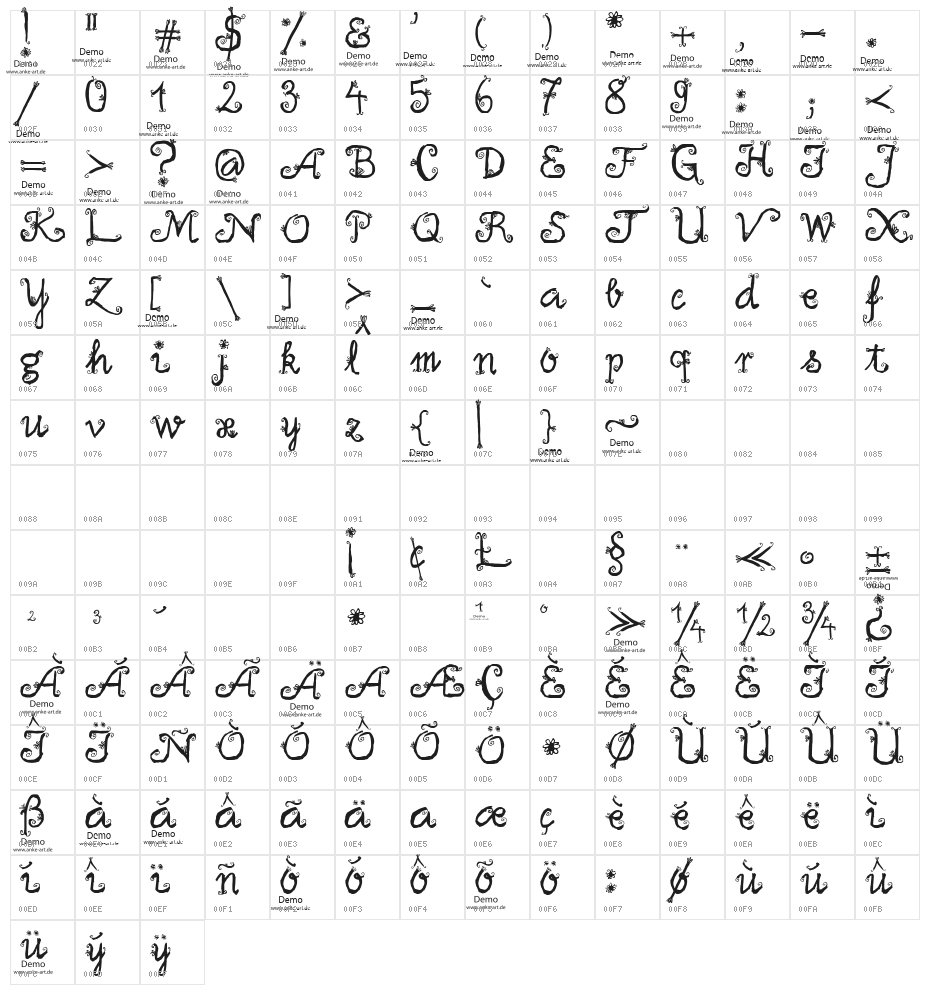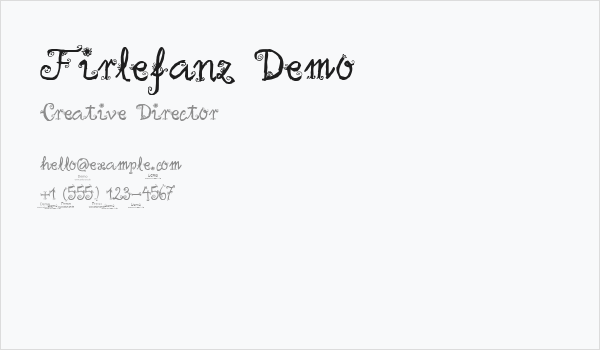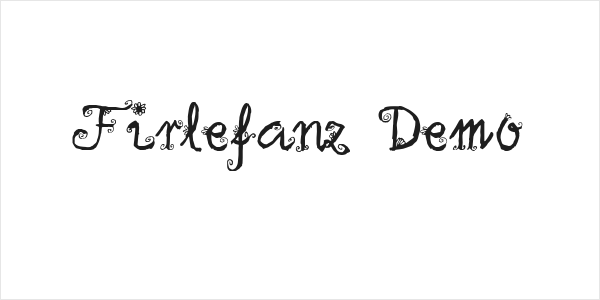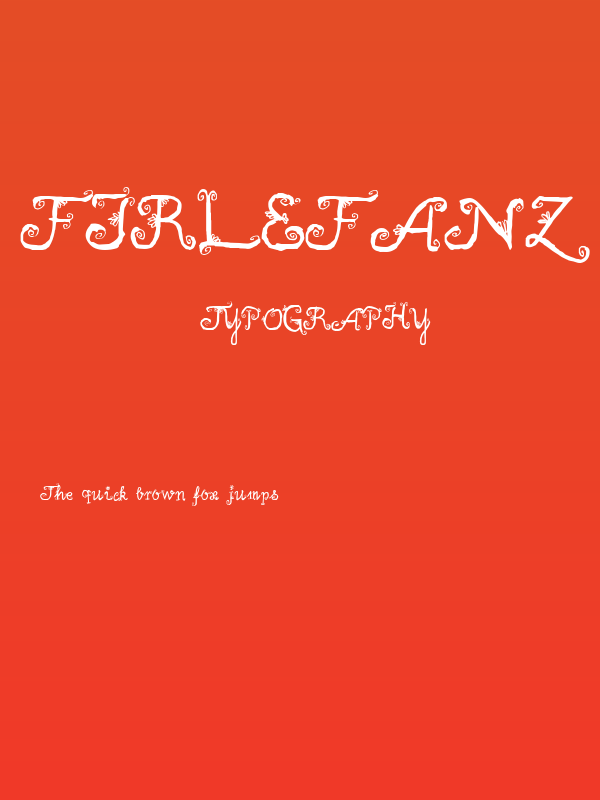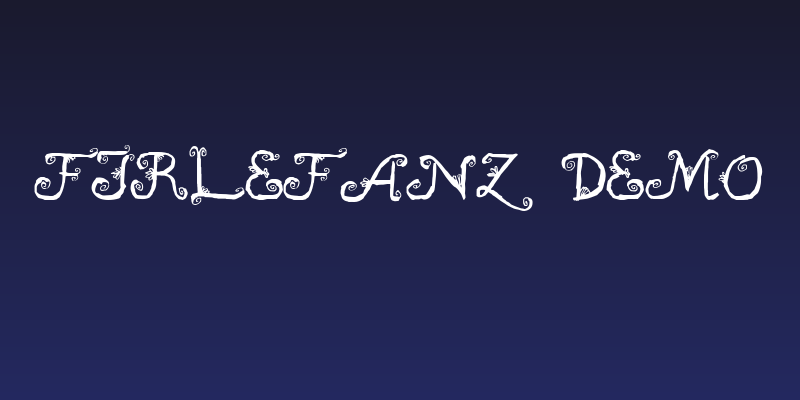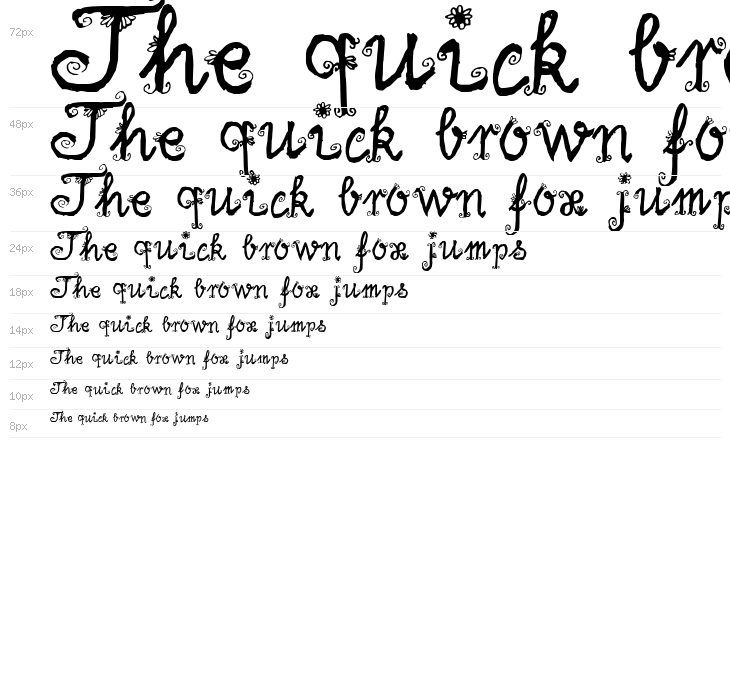
Firlefanz Demo Font
Firlefanz Demo Description
This whimsical and decorative font features playful, swirling embellishments on each character, giving it a unique and artistic flair. The uppercase letters are bold and ornate, with intricate curls and loops that add a touch of fantasy. The lowercase letters maintain a similar style, with some characters adorned with star-like accents. Numbers and special characters follow the same decorative theme, making the font cohesive and visually engaging. Its intricate design makes it suitable for creative projects that require a touch of elegance and whimsy.
| Proposed Projects | Ideal for invitations, greeting cards, children's books, and artistic posters. |